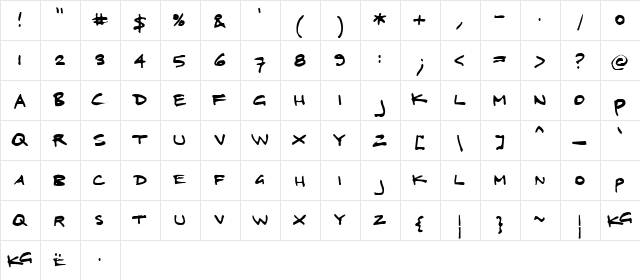
Megalomaniax KG Extra Bold
Design Context for Megalomaniax KG Typeface
Megalomaniax KG is a composed and adaptable typeface that performs quietly and consistently across a wide range of design contexts. The heavy weight commands attention and anchors typographic hierarchies.